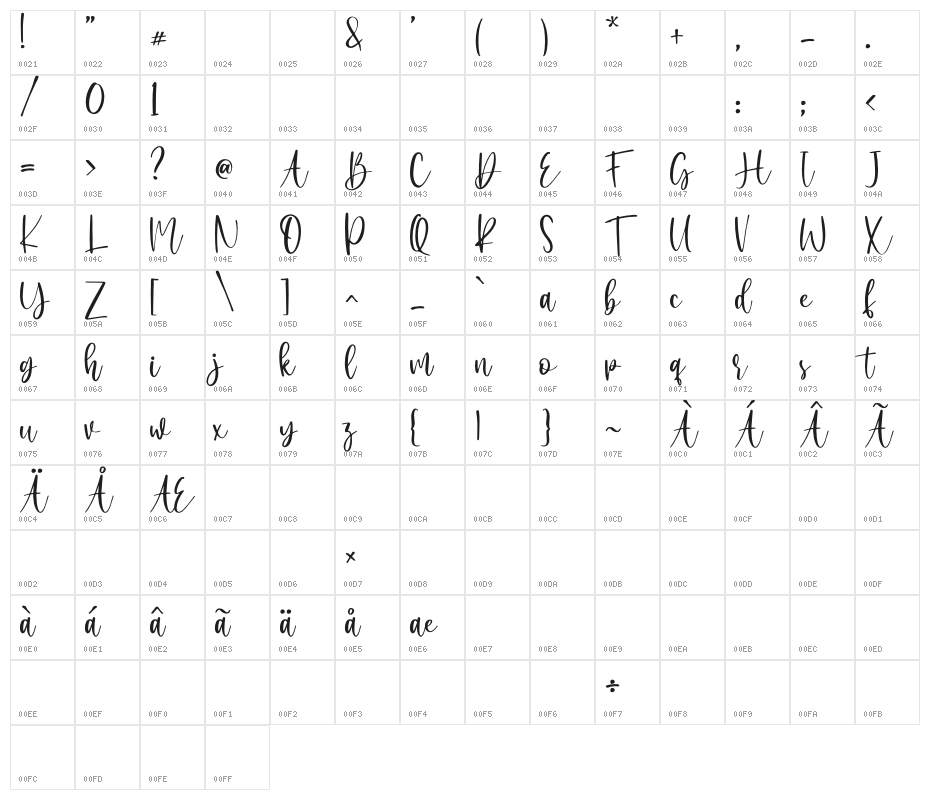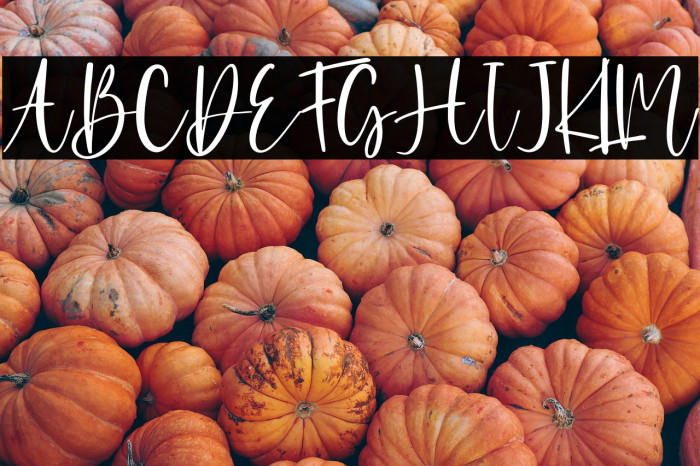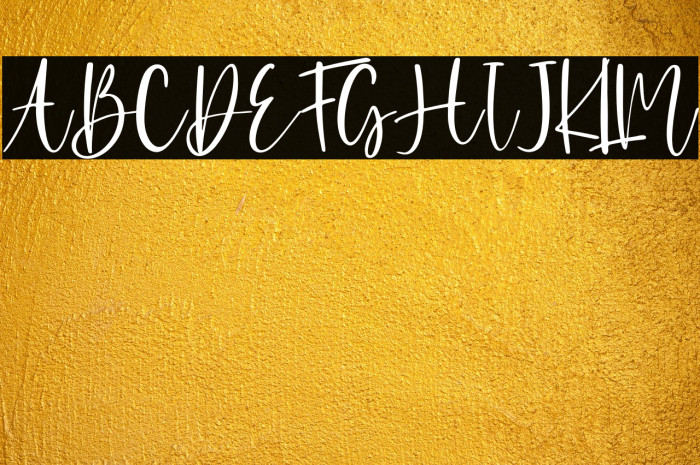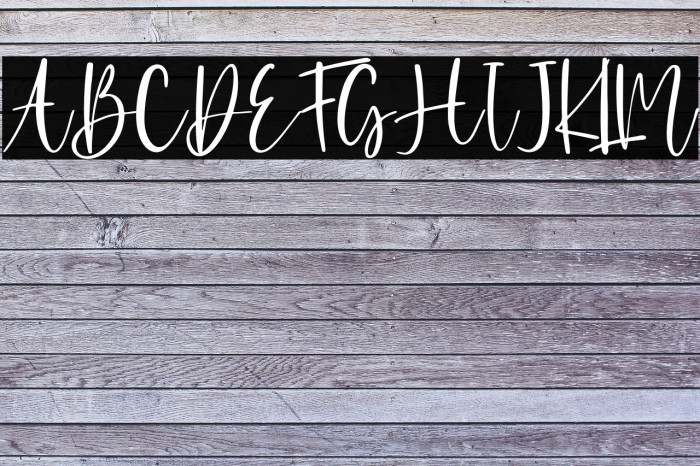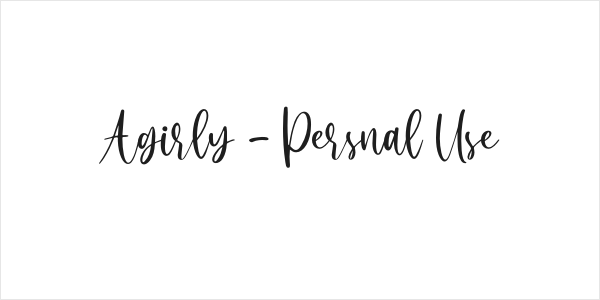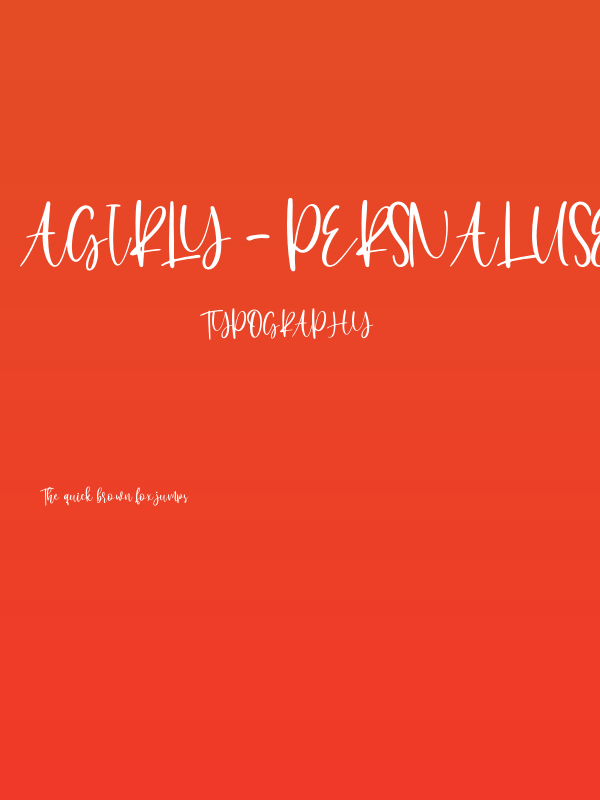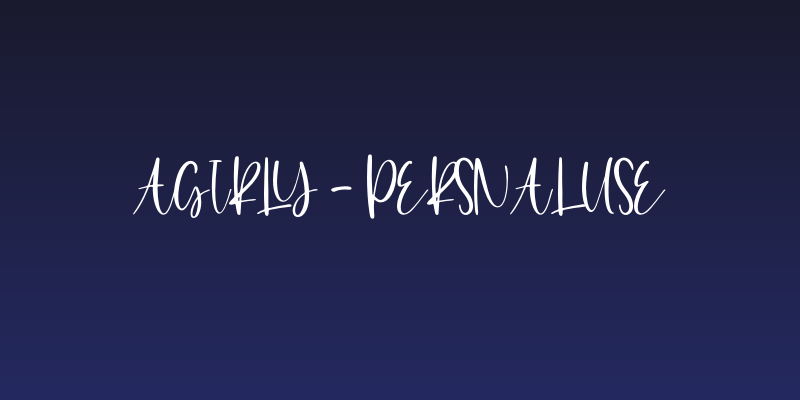
Agirly - Persnal Use Font
Agirly - Persnal Use Description
This font features a playful and whimsical handwritten style, characterized by its flowing, cursive letters. The uppercase letters are tall and slender, with a slight slant, giving them an elegant yet casual appearance. The lowercase letters are more rounded and bold, creating a nice contrast with the uppercase. The numbers and special characters maintain the same playful aesthetic, making the font versatile for various creative projects. The overall look is modern and stylish, perfect for adding a personal touch to any design.
| Proposed Projects | Ideal for greeting cards, invitations, personal branding, and social media graphics. |